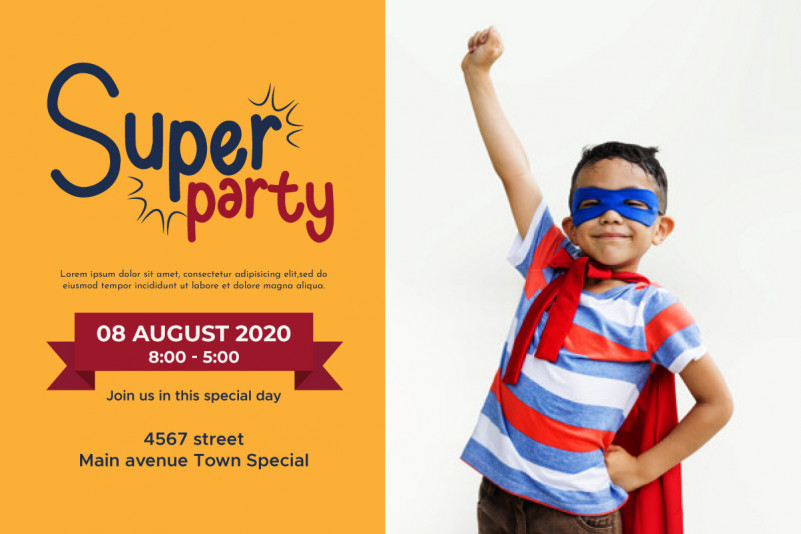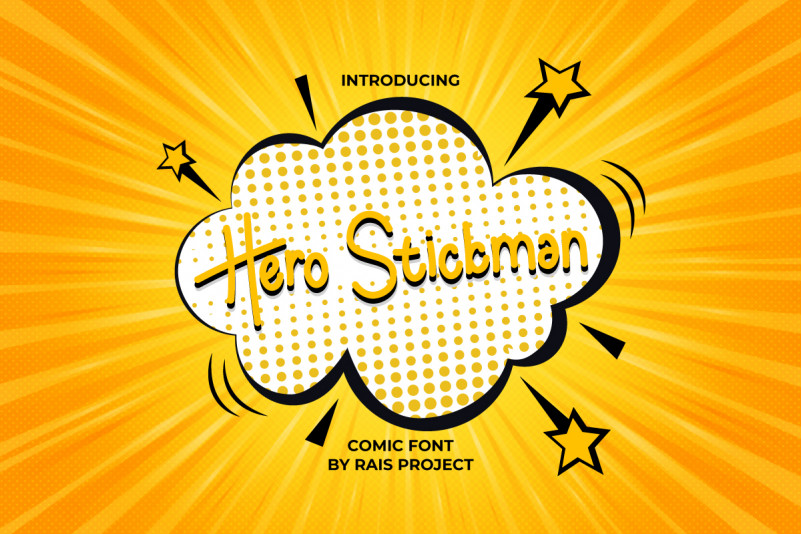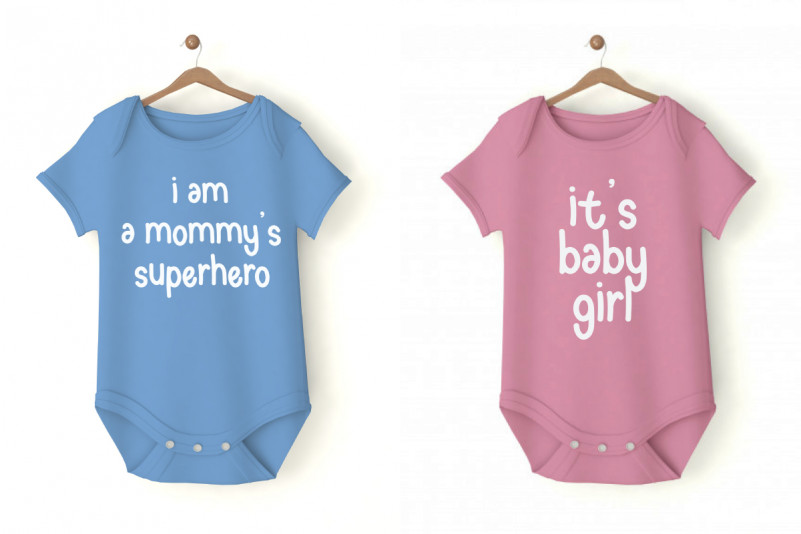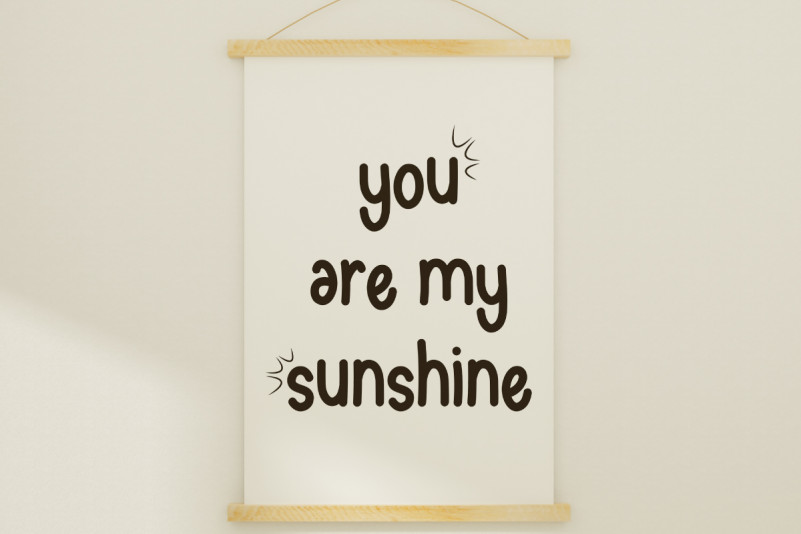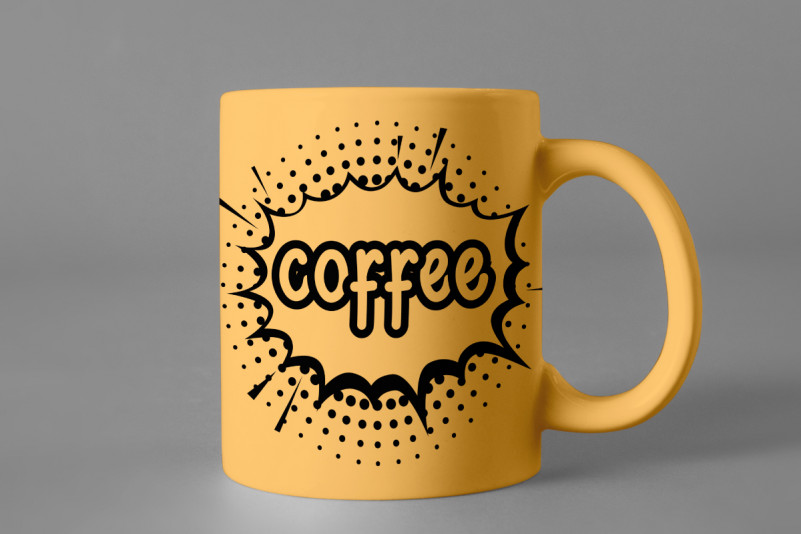
HeroStickman Font
Hero Stickman Font is a fun display decorative sans serif font family, designed by Rais Project. It will be great for Games, Movie, Music, events, Food branding, Fun related product Branding etc
Hero Stickman Comic Font was exclusively handcrafted for any your special projects including : brands, promotion, events, games, advertising, magazine, signage, invitation, stationery, social media posts, label, or and any projects that need unique style. HeroStickman have three different styles : Regular, Italic and Bold. The industries for this font is Book, Events, Games, Magazine, Music, Movies, Cafe, Restaurant etc